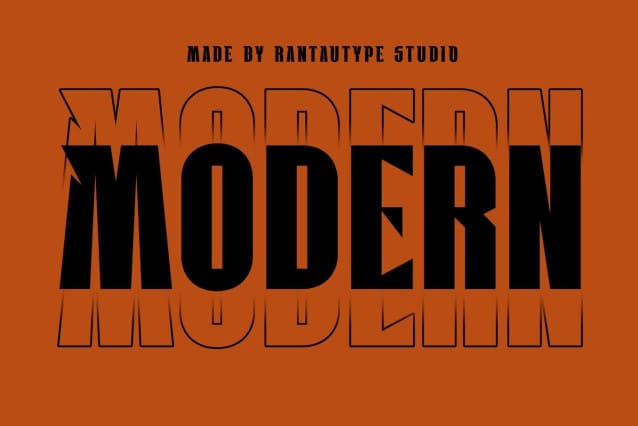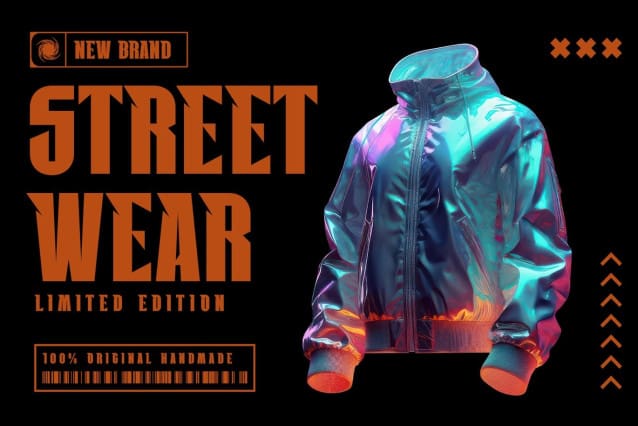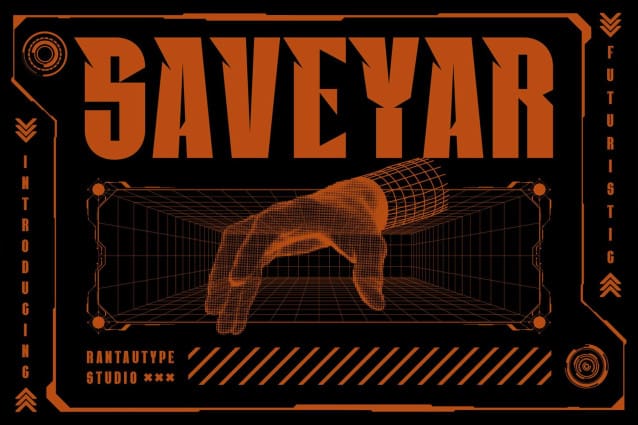
Saveyar Font
Saveyar Font is a futuristic display font inspired by robotics, artificial intelligence, and sci-fi visual design. Strong and unique, this futuristic font fits the bill. Its shape can make another world of technology design projects more attractive and stand out!
Saveyar Font is a perfect choice for any creative, chic and lifestyle design such as logos, advertisements, stationery, branding project, display and magazine, invitation, corporate branding, product design, label, commercial project and much more. other projects with an elegant touch.